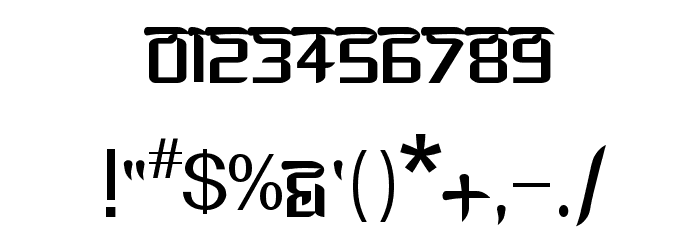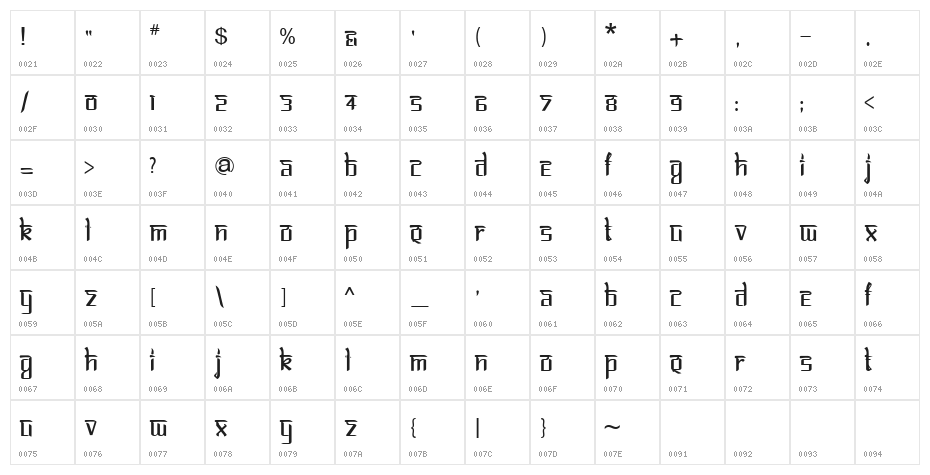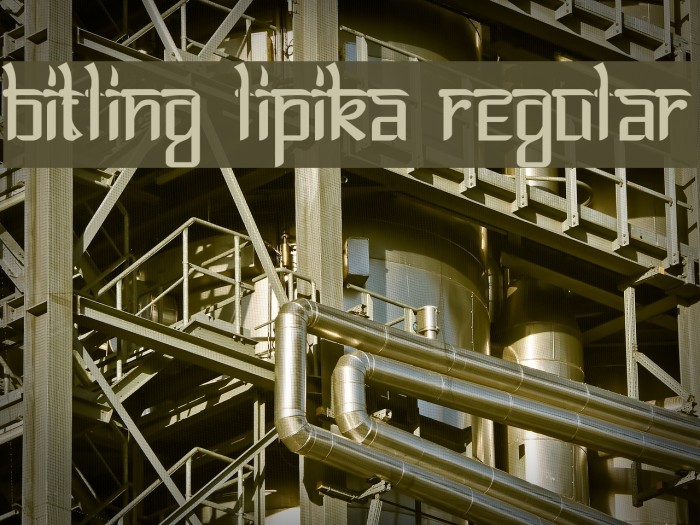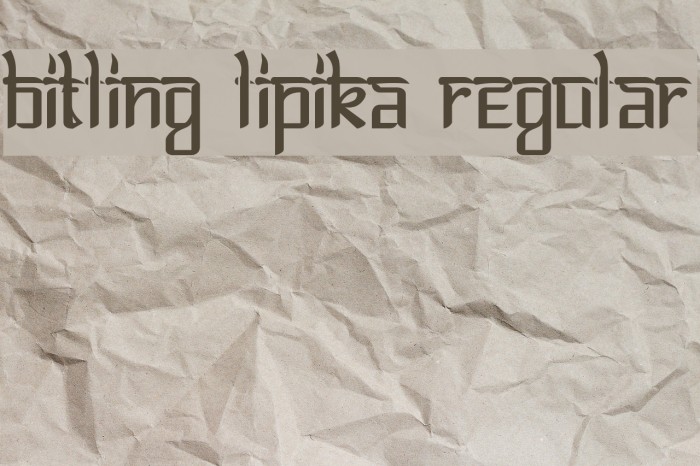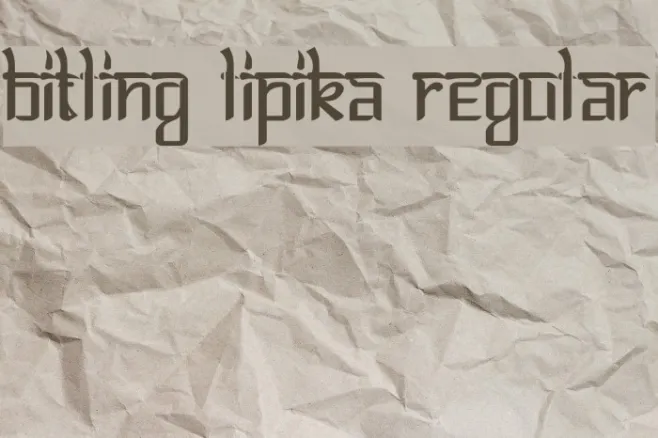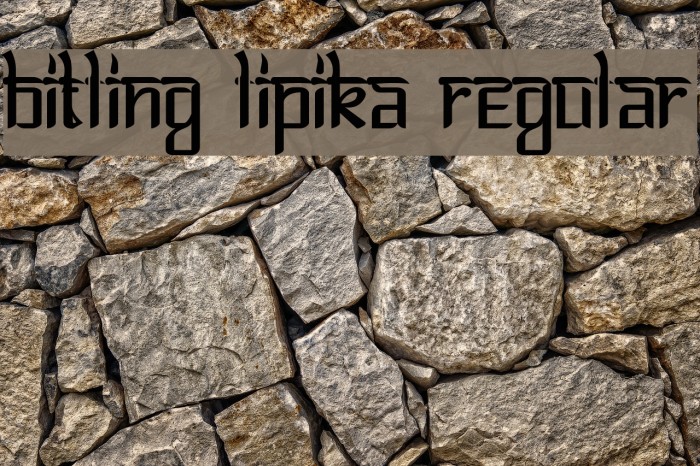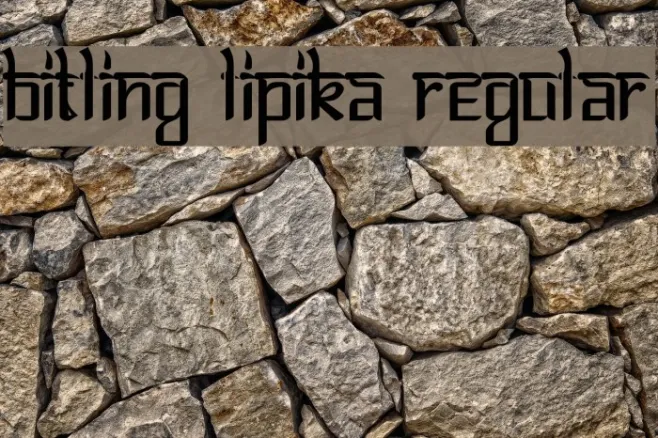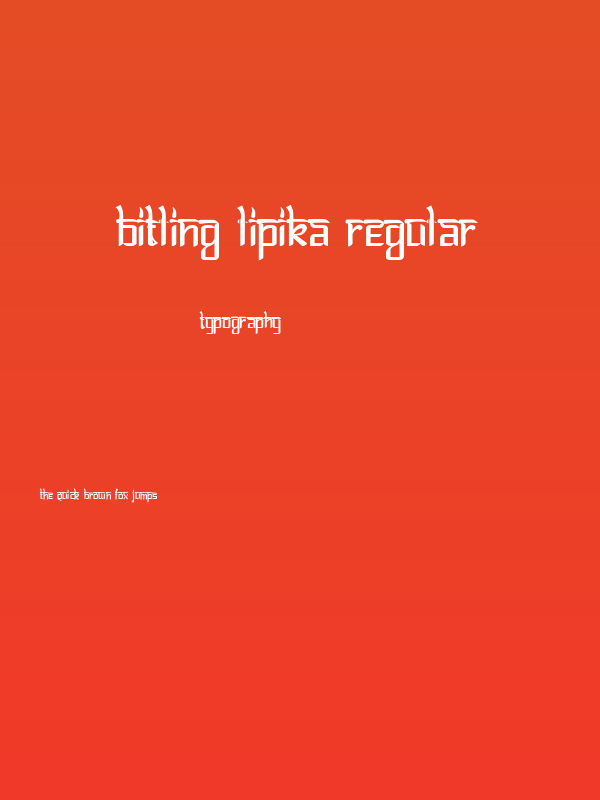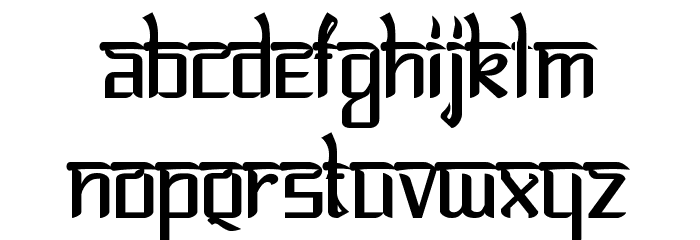
Bitling lipika Regular Font
Bitling lipika Regular Description
This font features a unique and modern design with a geometric and angular style. The characters are bold and have a distinct, almost futuristic appearance. The uppercase and lowercase letters maintain a consistent height, giving the font a uniform look. The numbers and special characters are designed to match the overall aesthetic, with sharp edges and clean lines. This font is suitable for projects that require a contemporary and edgy feel, making it ideal for branding, posters, and digital media.
| Proposed Projects | Ideal for branding, posters, digital media, and any project requiring a contemporary and edgy look. |